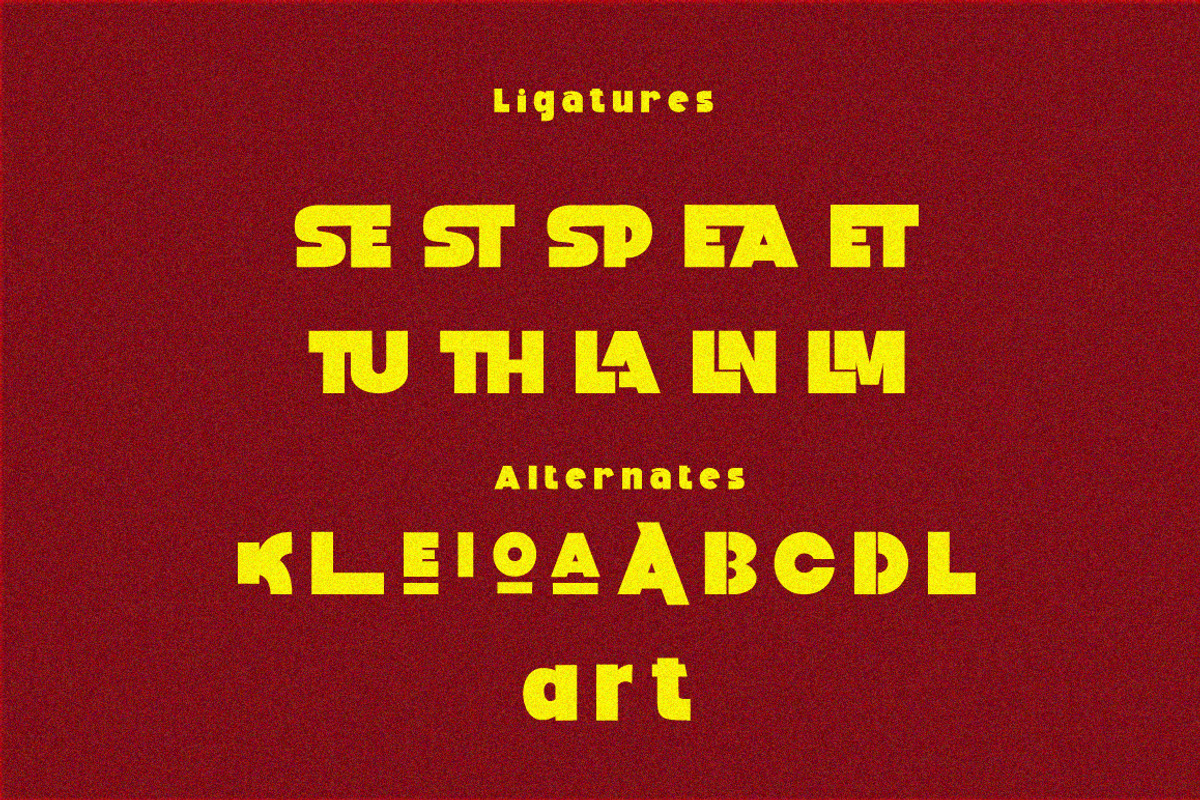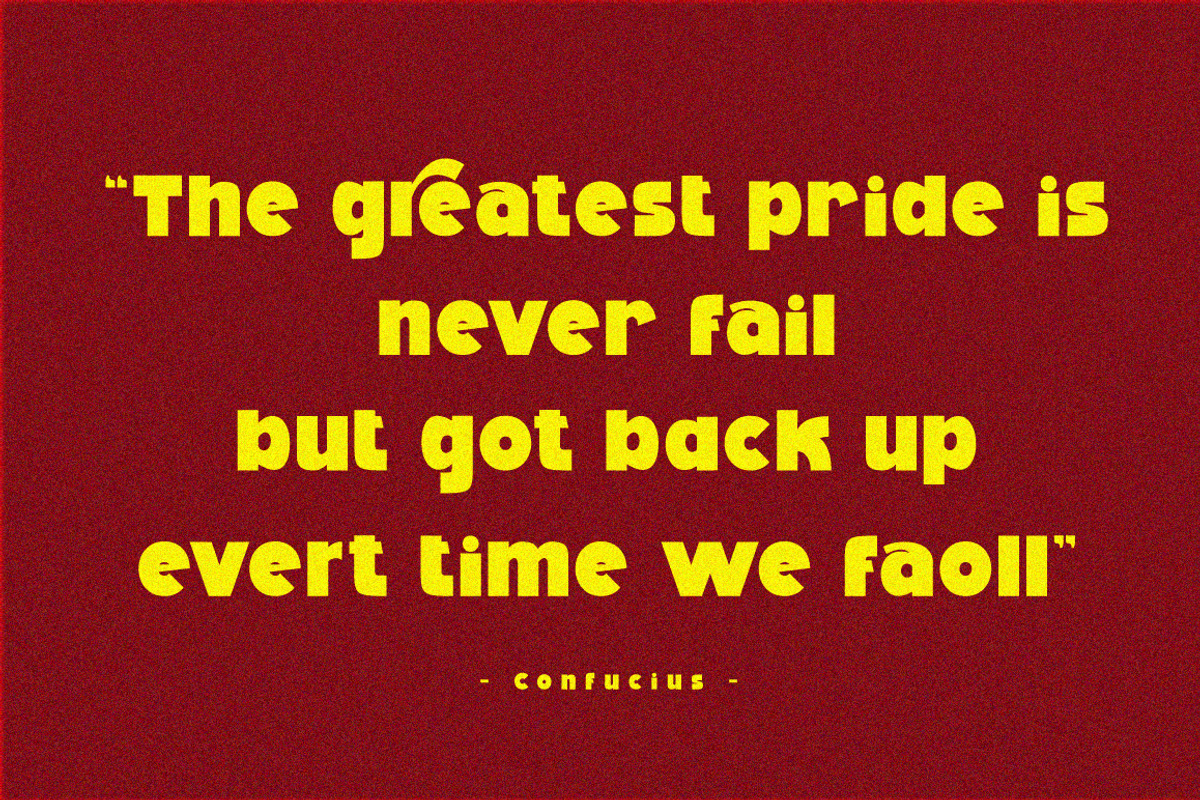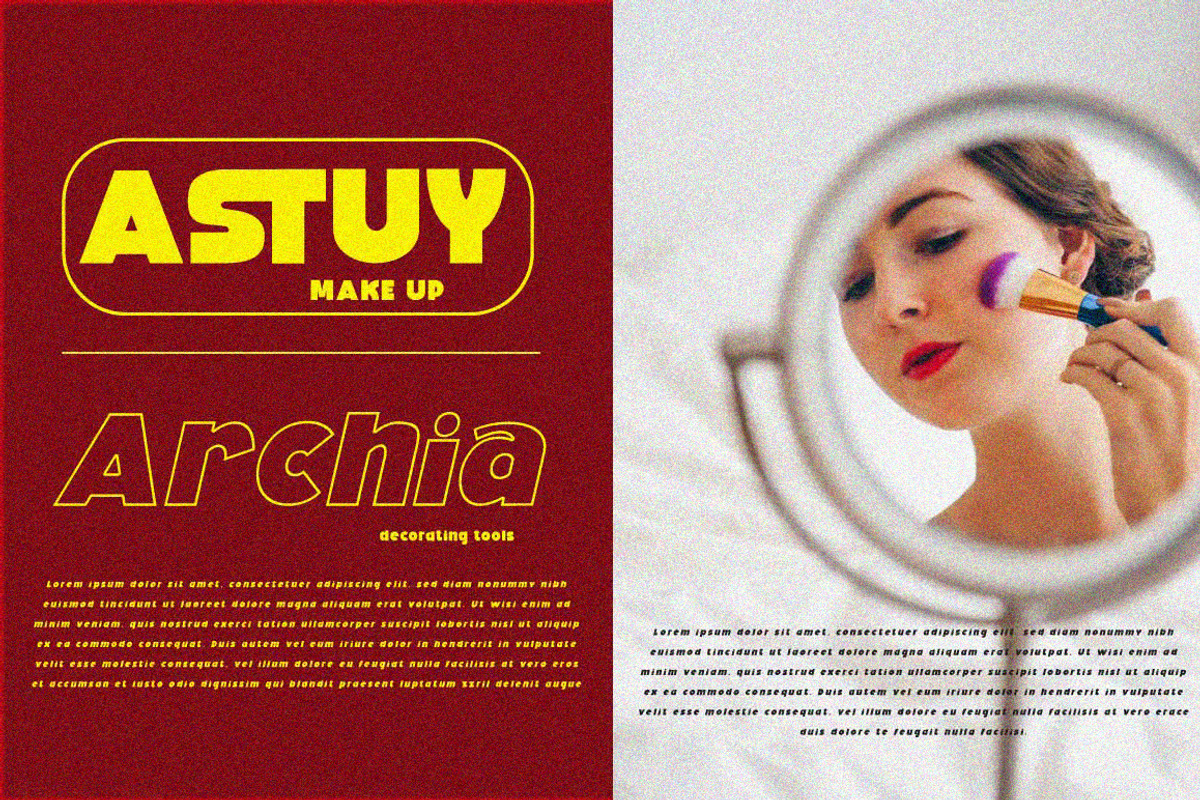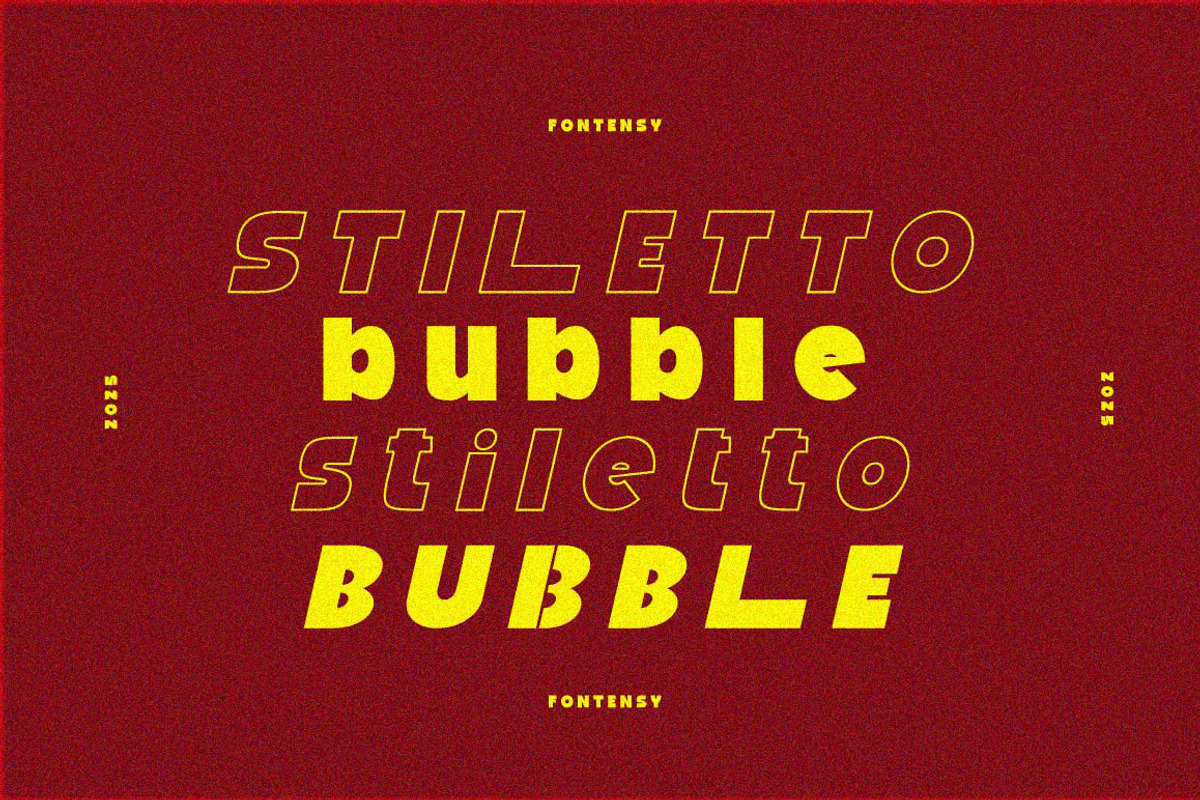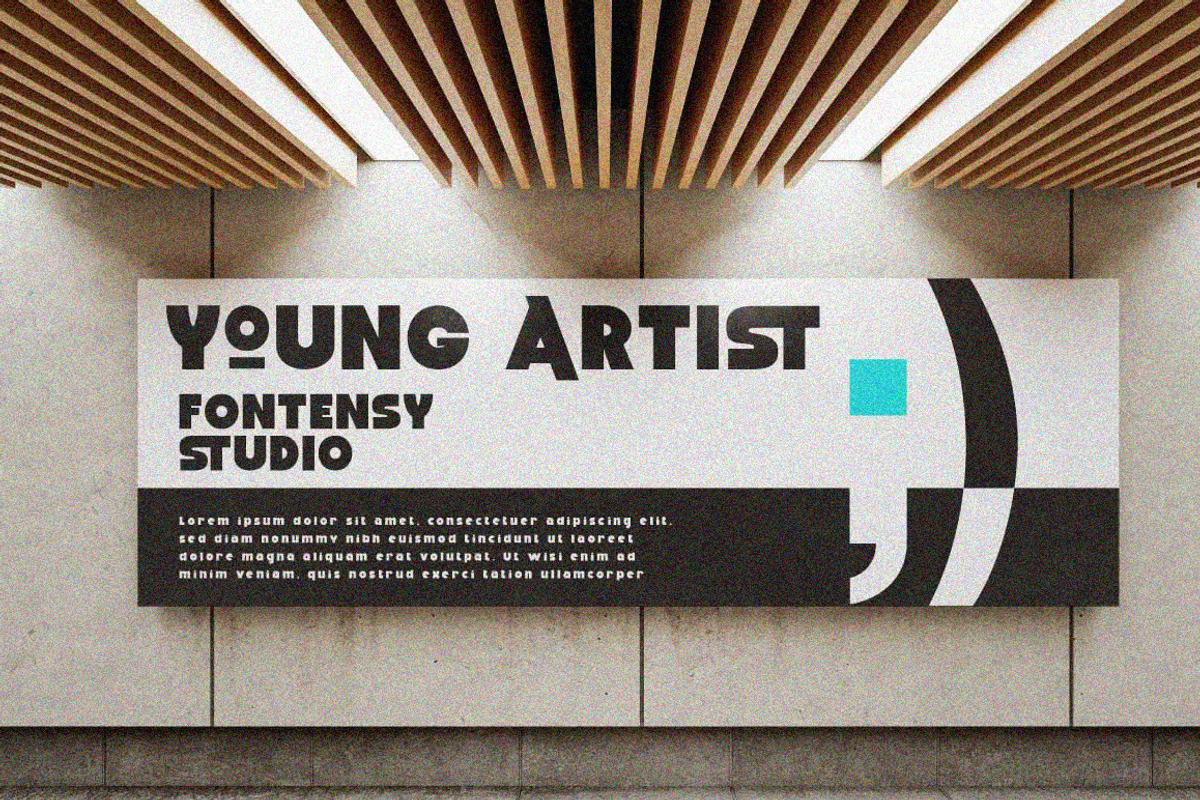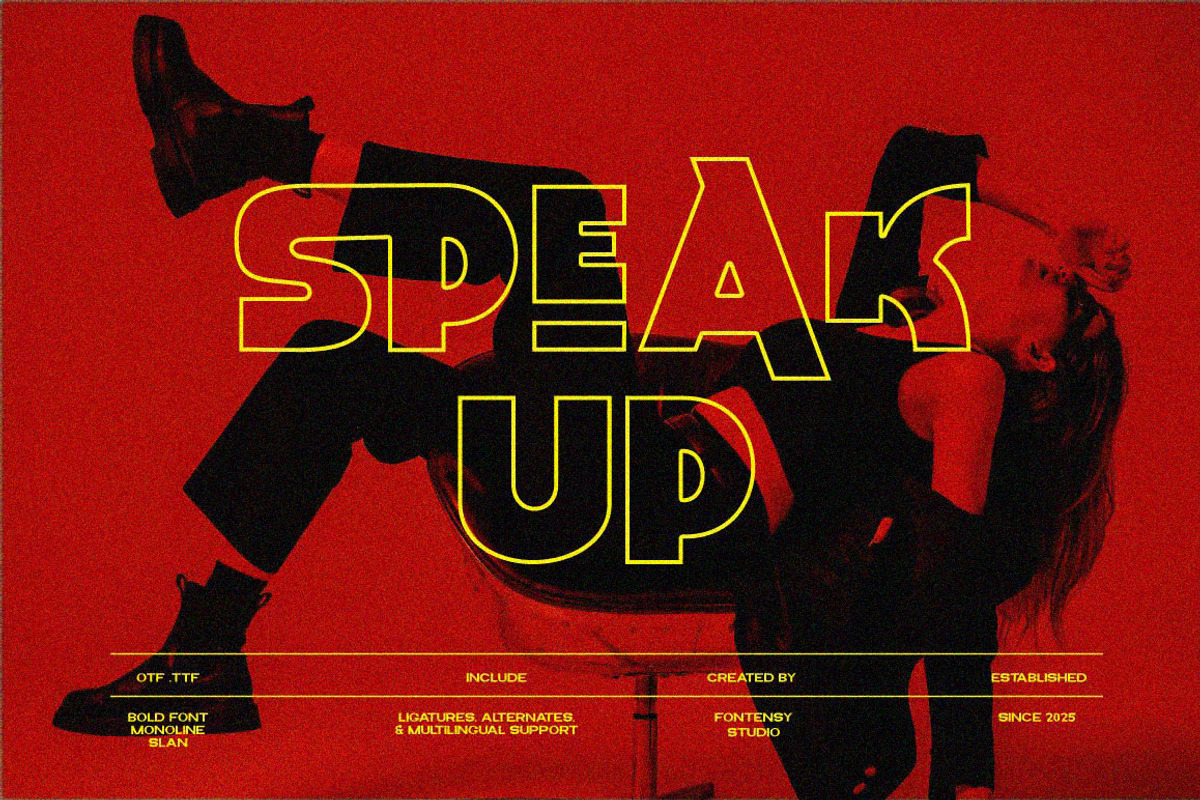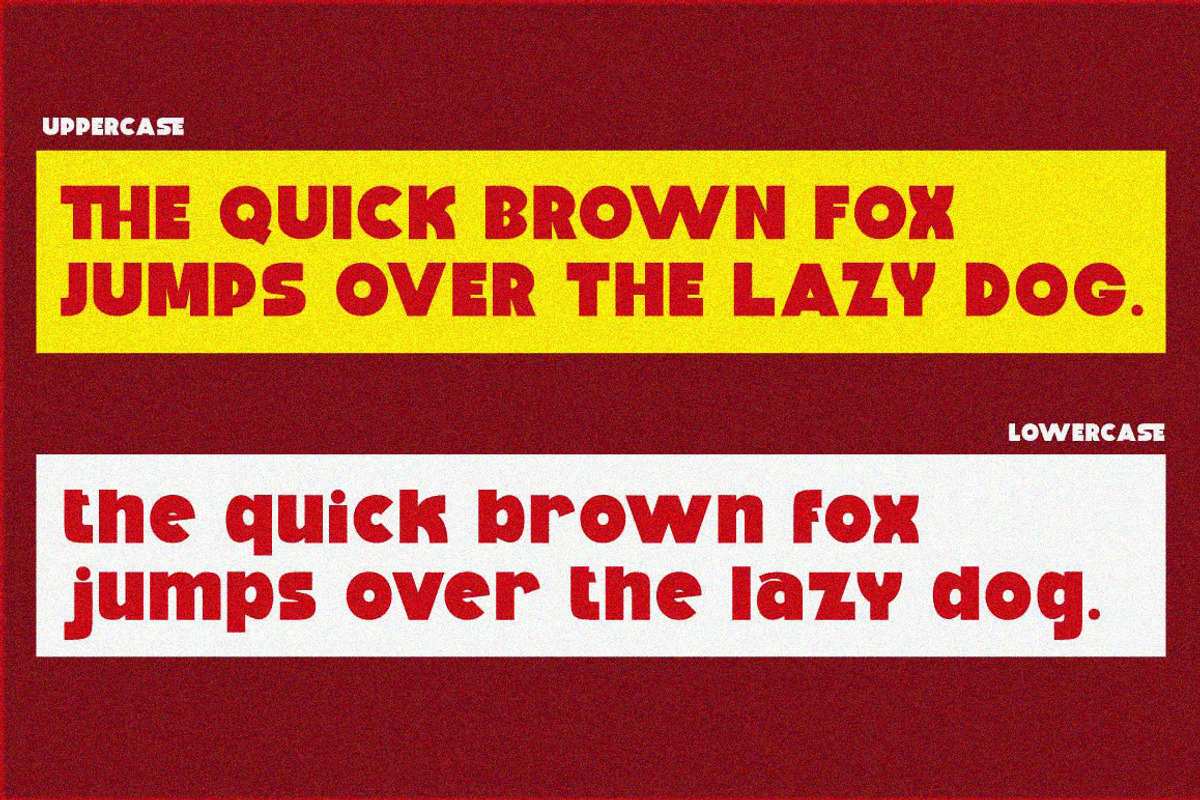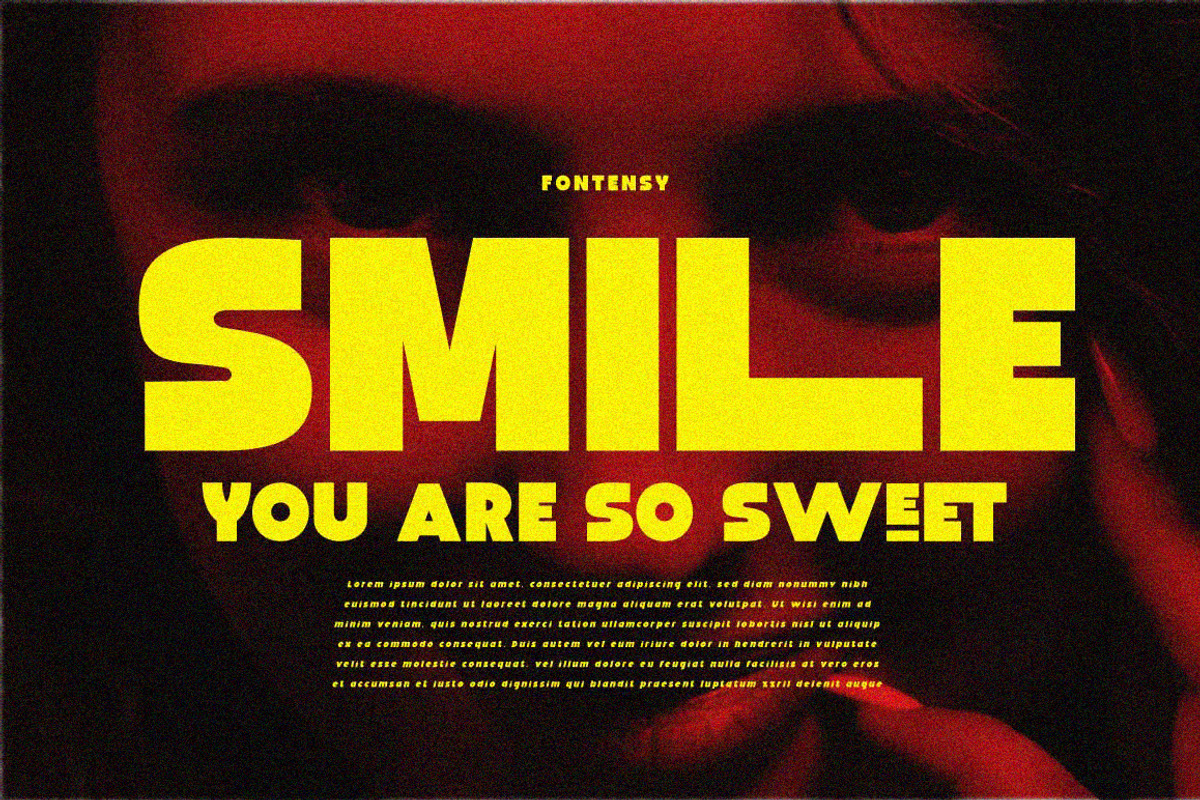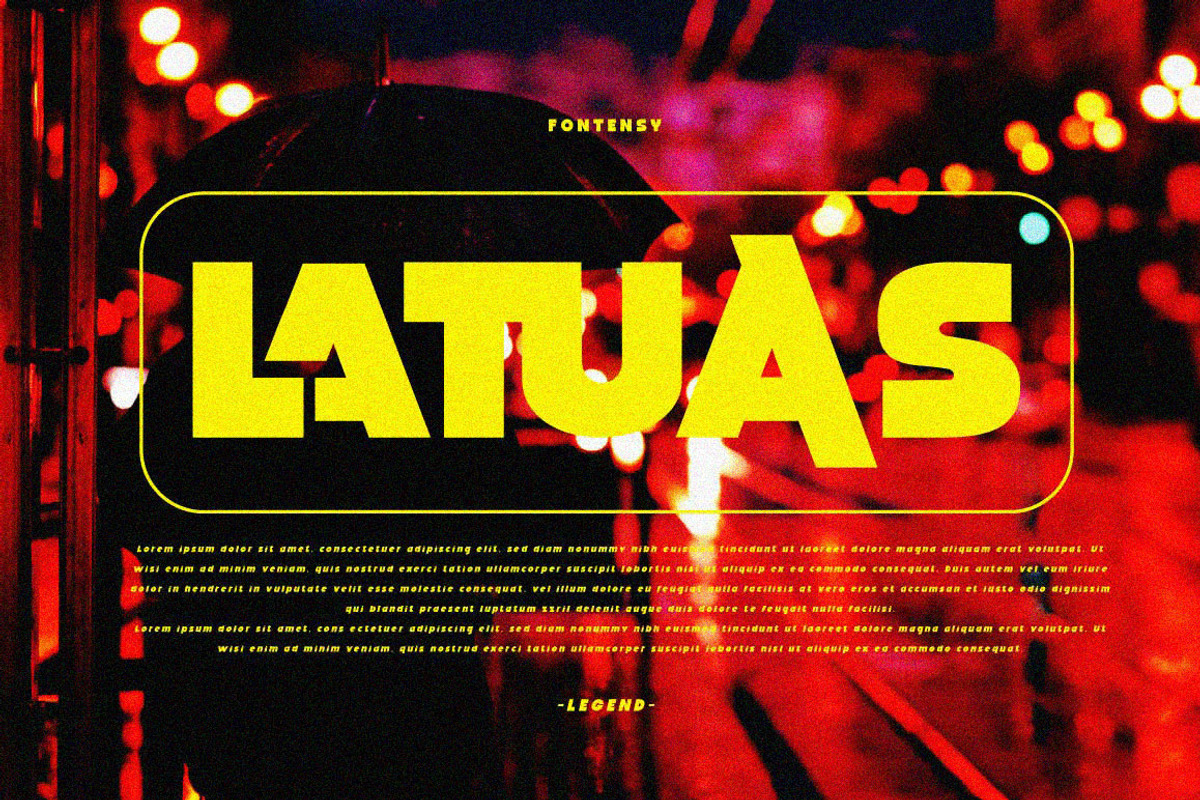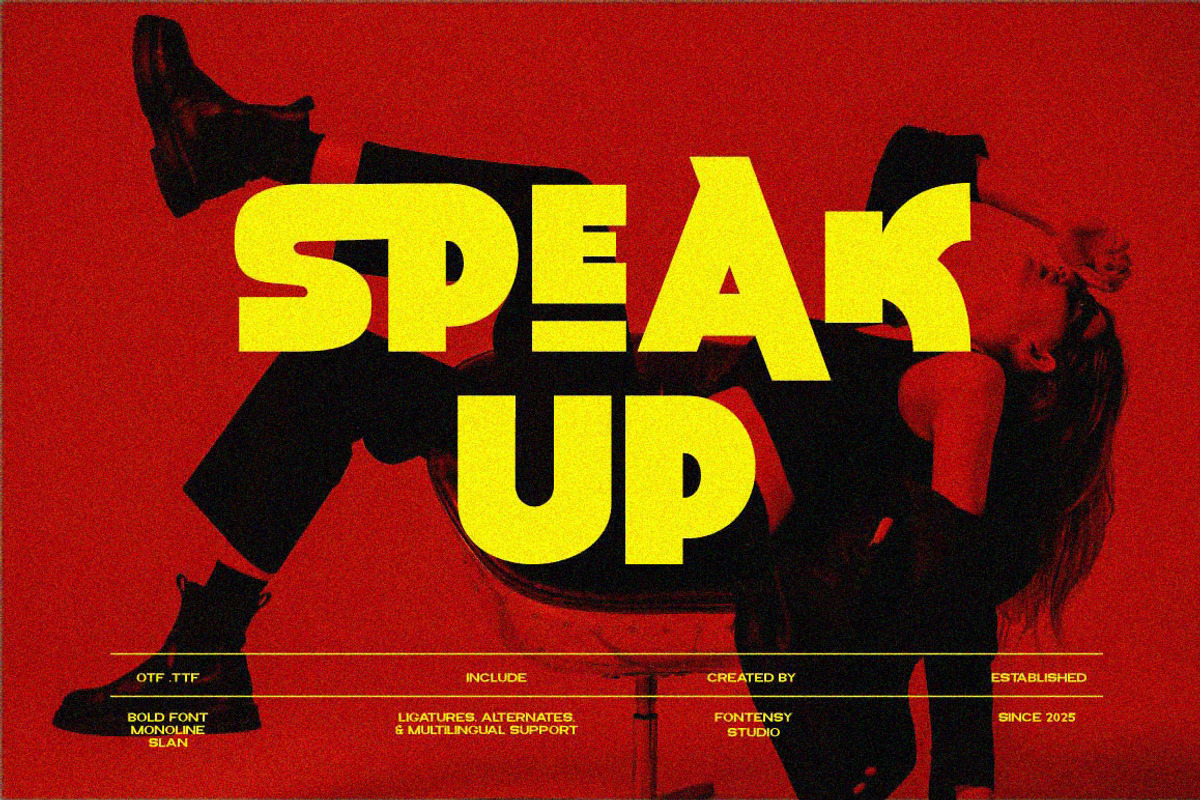
Speak Up
Introducing our new product Speak Up - Sans Serif Font Family
A sans-serif font family available in a variety of styles is a very versatile choice for graphic design and clean, modern text displays. This sans-serif font family offers flexibility in graphic design, and its various styles allow you to customize the text display to suit the needs of your project. With various combinations, you can create text displays that are attractive and easy to read in a variety of contexts.